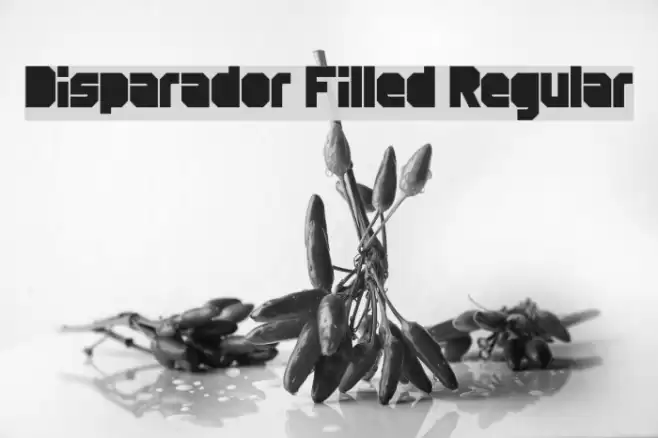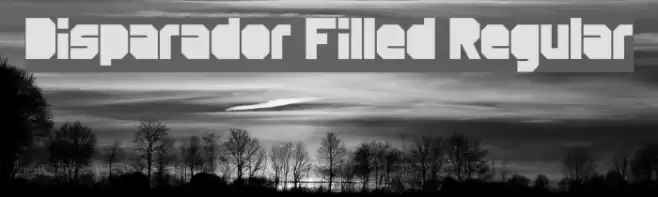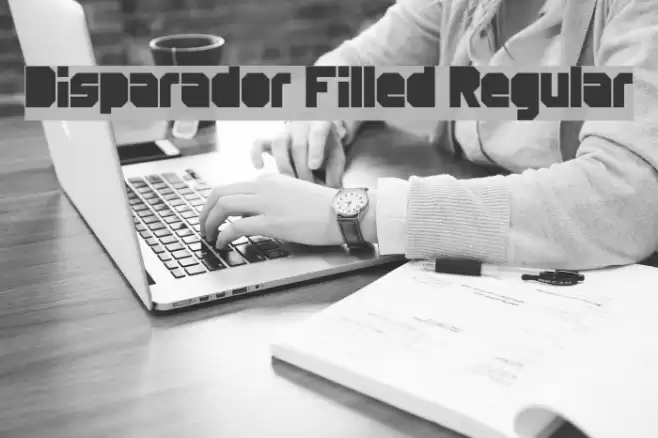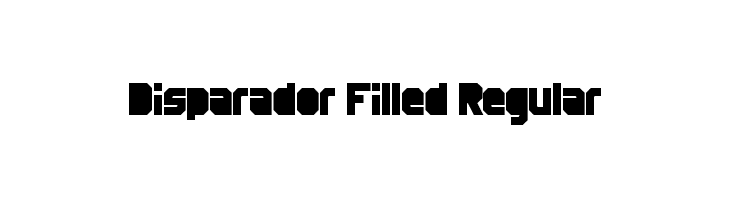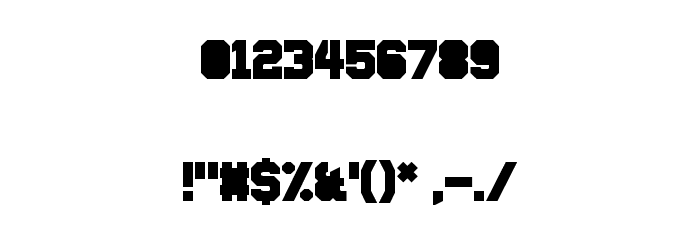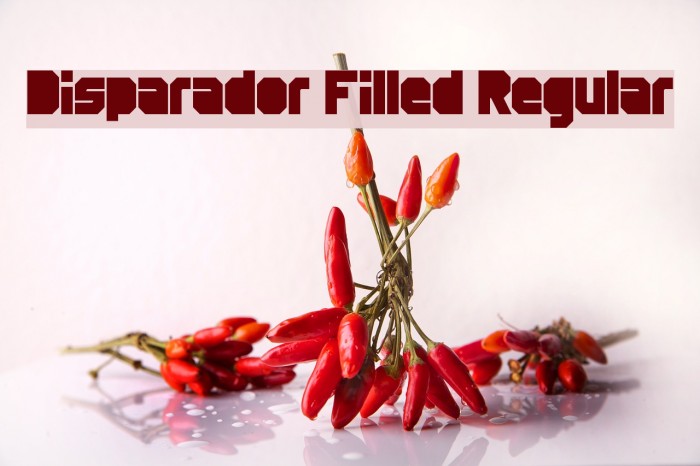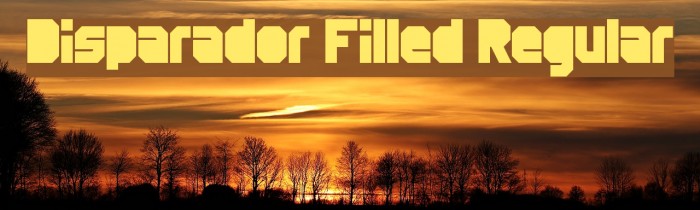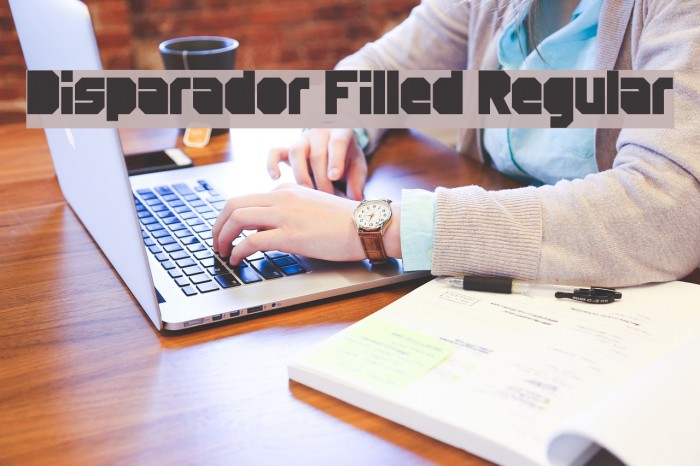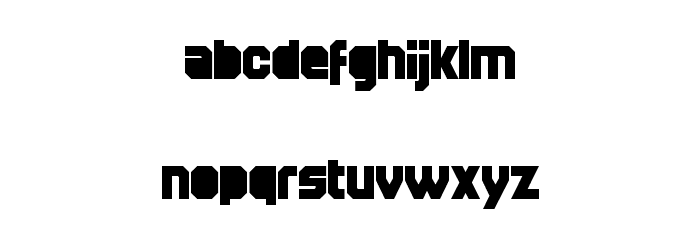
Disparador Filled Regular Font
Disparador Filled Regular Description
This font features a bold and impactful design with strong geometric shapes and a filled appearance. The characters are constructed with sharp angles and a solid, block-like structure, giving it a commanding presence. The uppercase and lowercase letters maintain a consistent weight, contributing to its uniformity and balance. The numbers and special characters follow the same bold style, ensuring a cohesive look across all elements. This font's distinct style makes it suitable for attention-grabbing designs.
A bold, geometric font with a filled, block-like appearance from Uncategorized fonts.
- Proposed Projects: Ideal for posters, headlines, branding, and any project requiring a strong visual impact.